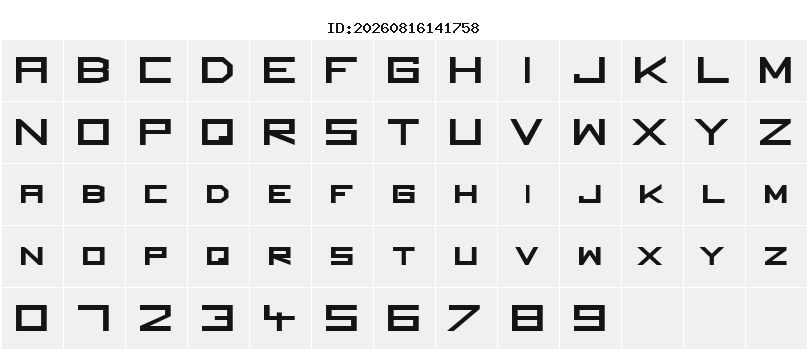
• Font Name: Square Unique
• Font Style: ExtraBold
• Font ID: Square Unique Extra Bold
• Full Font Name: Square Unique ExtraBold
• Version: Graf X press 1.1
• PostScript Name: SquareUniqueExtraBold
• Character Count: 92
• Copyright: designed by Dieter Schumacher © 1998
About Square Unique.ttf
Square Unique.ttf is a modern, elegant sans-serif font designed for ultimate readability and visual harmony. Perfect for branding, headlines, web design, and print materials.